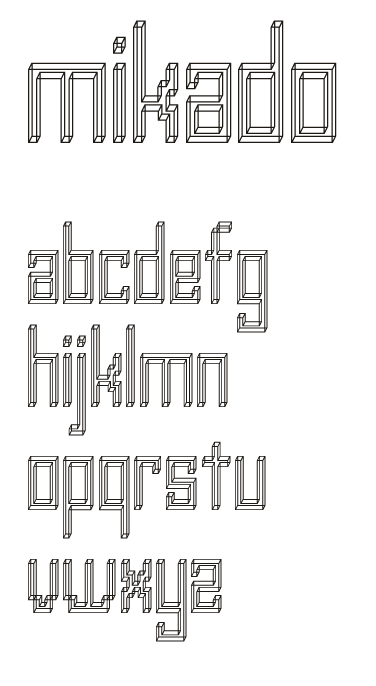
• it looks so simple but this one was so hard to do. because of the high resolution i was working on my browser used to freeze several times during process.
The hard work was so worth the effort. It's mesmerizing.
Wow. Great font and great effort.
Make capital letters and fill them in or something like that. Also the k is strange
this is BIG TIME awesome.
the bigger it's scaled the cooler it is!
great work.
hehe, it's great! it makes my eyes go crazy ;)
This plays with your head! One second it looks beveled left and then it looks beveled right...and it keeps switching :)
Reminds me of this optical illusion
Reminds me of letters that I would make using an etch a sketch, but way better!
somehow it makes me want to wear 3d glasses...
Like it!!!